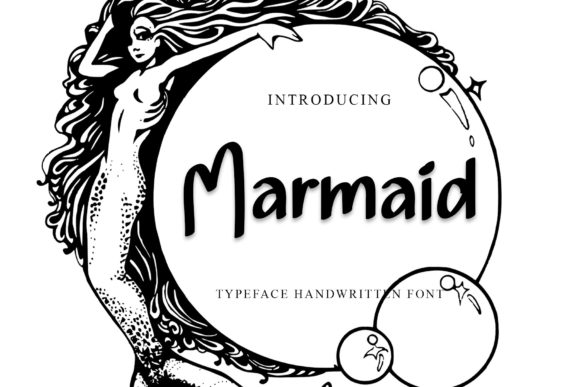
Behold Marmaid Font, a captivating script font that weaves enchantment into every word, designed by the talented dazzlinggleam. Its playful handwritten style captivates with peculiarly chunky yet elegant characters, adding a touch of whimsy and creativity to your designs.
Marmaid Font is the epitome of individuality and charm, offering a distinctive voice to your projects, whether it's a captivating resume or an alluring wedding invitation. Its unique glyphs, carefully crafted with subtle nuances, are a testament to the designer's attention to detail. Its curves flow with grace, its lines dance with energy, and its boldness commands attention without overpowering.
Adorn your words with Marmaid Font and watch them bloom into an art form. Each letter, meticulously shaped with intention, carries a story, a tale of creativity and inspiration. Experience the joy of expressing yourself in a way that is uniquely yours, as Marmaid Font transforms your words into a vibrant symphony of visual delight.
With its inherent versatility, Marmaid Font seamlessly adapts to a myriad of projects. From the professional realm of resumes and business cards to the artistic haven of invitations and posters, its charm knows no bounds. Its playful nature lends itself to personal blogs and social media posts, infusing them with a touch of vibrancy and personality.
Embark on a creative journey with Marmaid Font as your trusty companion. Let its whimsical strokes ignite your imagination and propel your designs to new heights of creativity. Embrace the magic of Marmaid Font and unlock the boundless possibilities of self-expression.